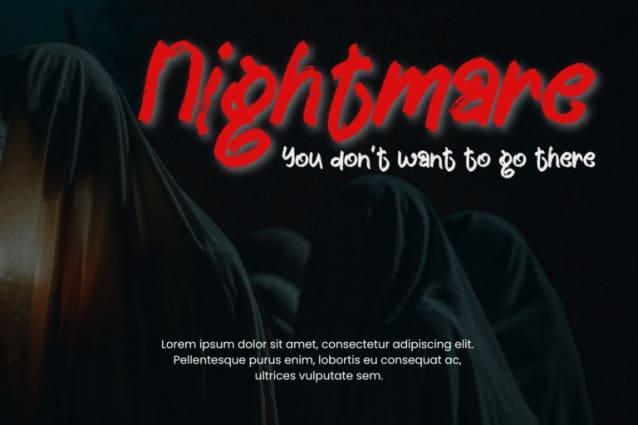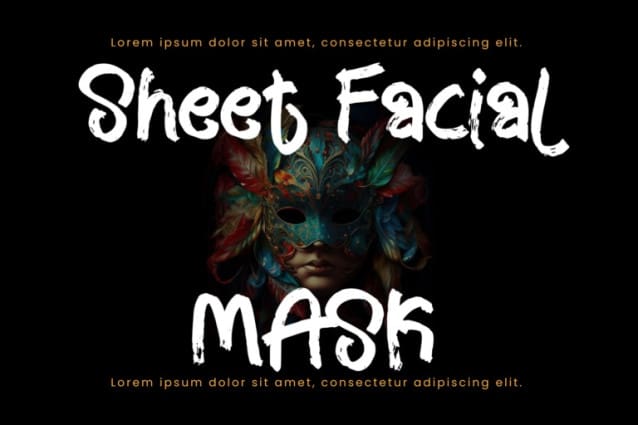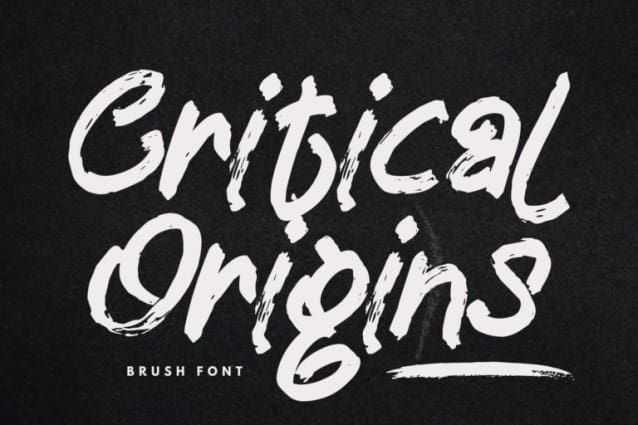
Critical Origins Font
Critical Origins Brush Font | Hand Drawn Brush. Give your designs an authentic handcrafted feel. This font is perfectly suited to signature, stationery, logo, typography quotes, magazine or book cover, website header, flyer, clothing, branding, packaging design and more.